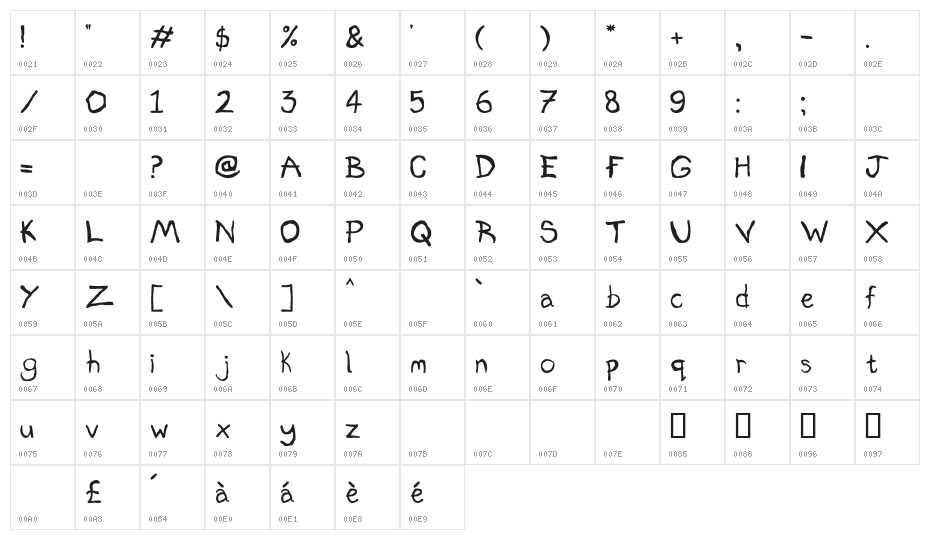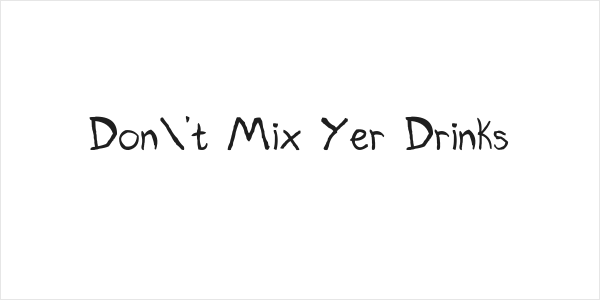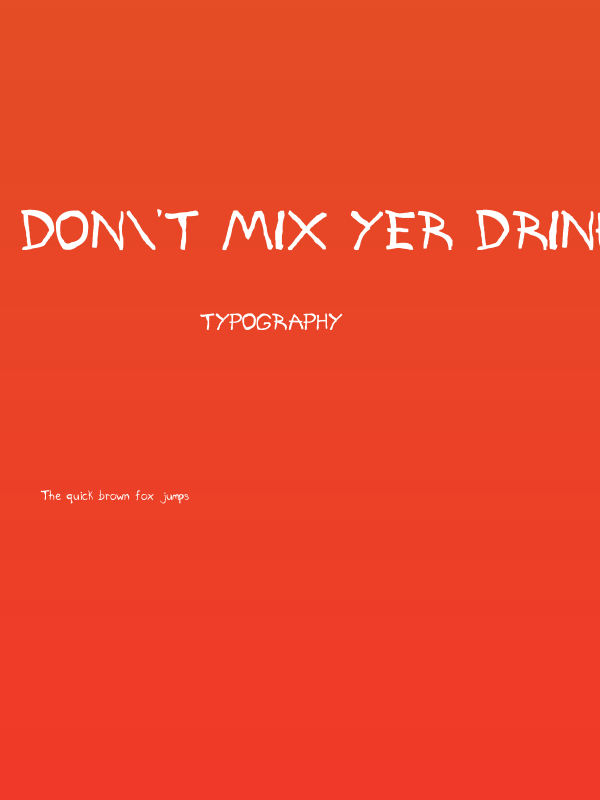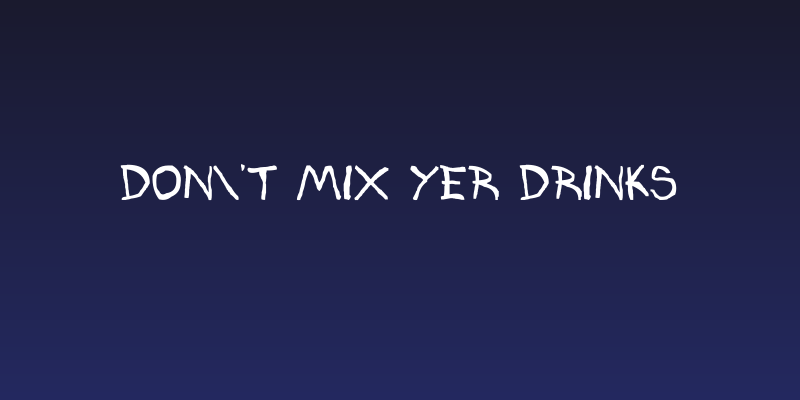
Don't Mix Yer Drinks Font
Don't Mix Yer Drinks Description
This font features a playful and quirky handwritten style, characterized by uneven strokes and a casual, informal appearance. The letters have a slightly irregular baseline, giving them a dynamic and lively feel. The uppercase and lowercase letters maintain a consistent style, with rounded edges and a somewhat whimsical flair. Numbers and special characters follow the same playful design, making the font suitable for creative and fun projects. The overall look is reminiscent of a hand-drawn aesthetic, perfect for adding a personal touch to any design.